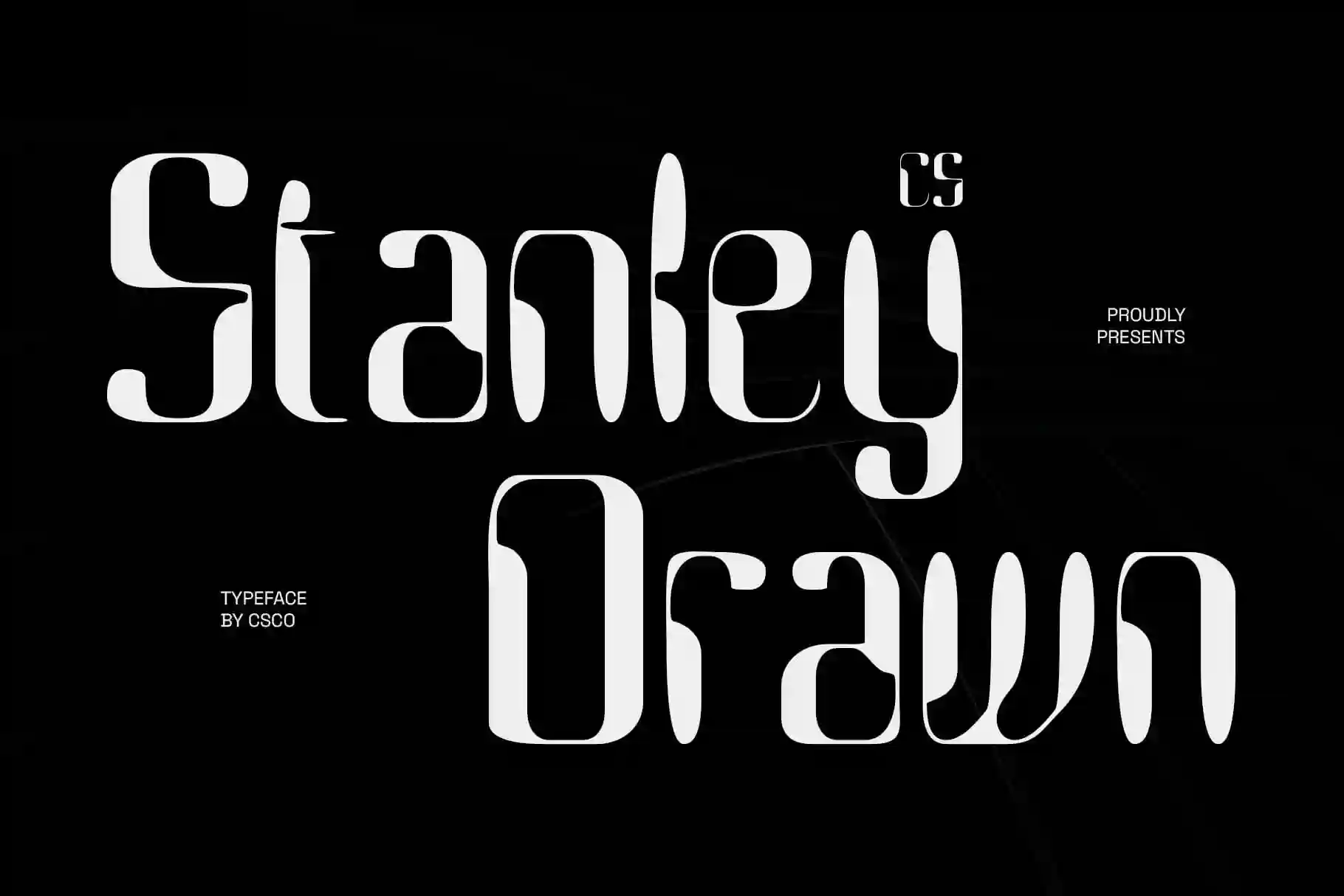
CS Stanley Drawn – Techno Display Font with Electric Contrast
Futuristic Techno Inspiration
This is a bold display font that channels the dynamic flow of electricity through its letterforms. Inspired by techno aesthetics, it brings modern energy and striking contrast to any design. Its bold structure makes it perfect for projects that need a futuristic edge with commanding visual presence.
Drawn Texture for Artistic Depth
What sets font apart is its drawn texture. Instead of clean, mechanical perfection, each character carries a handmade finish that adds personality and vibrancy. This drawn effect amplifies the font’s futuristic style while giving it a unique artistic depth that makes it stand out from other techno-inspired typefaces.